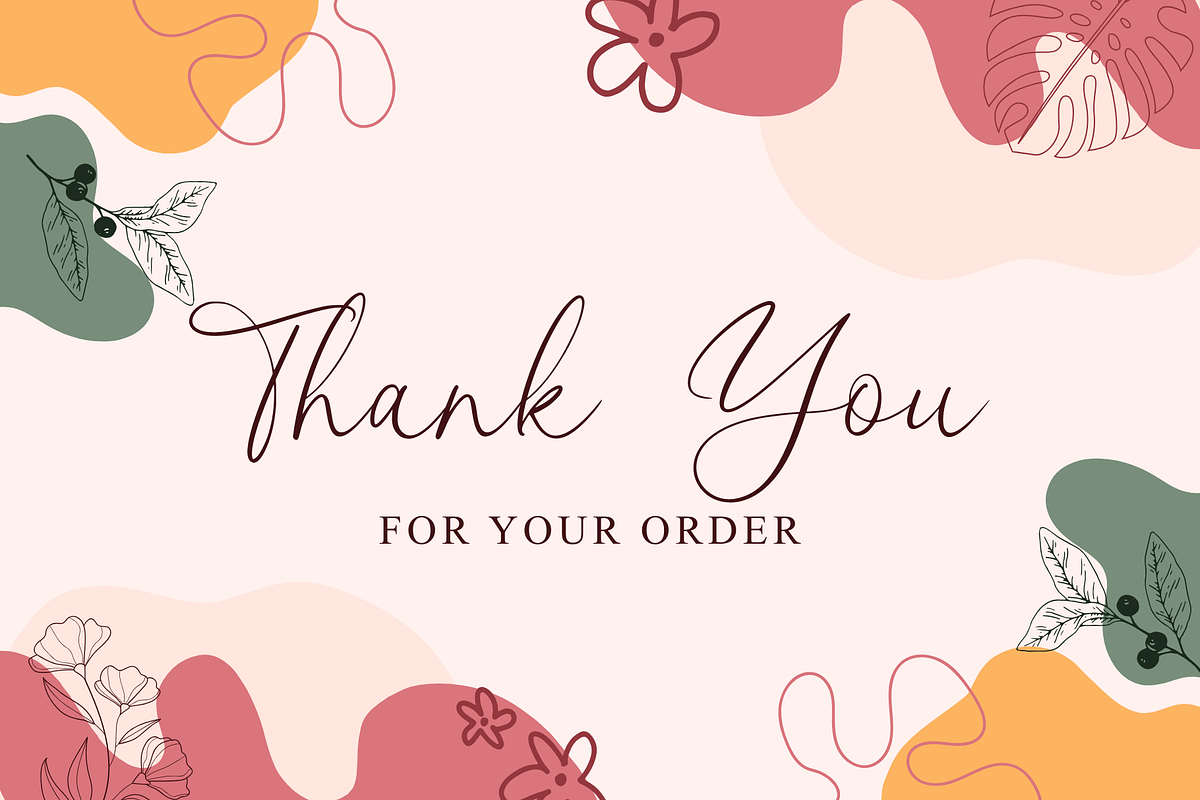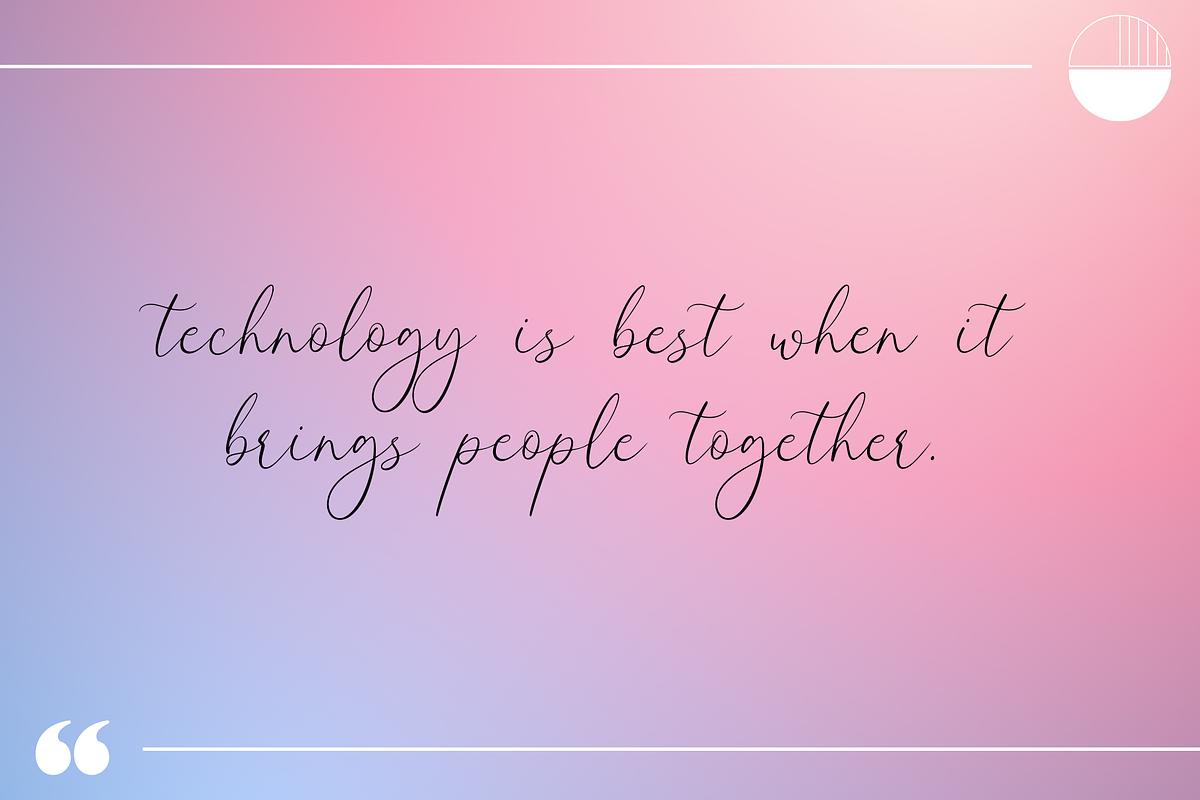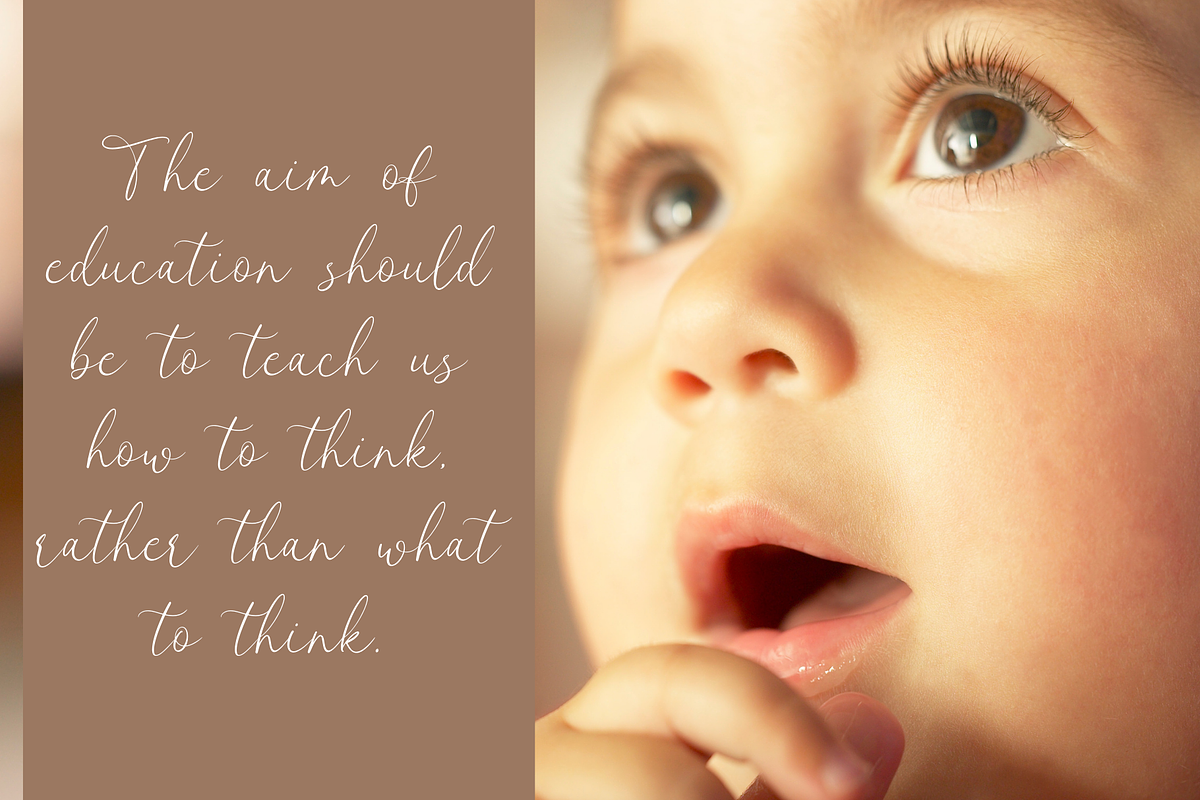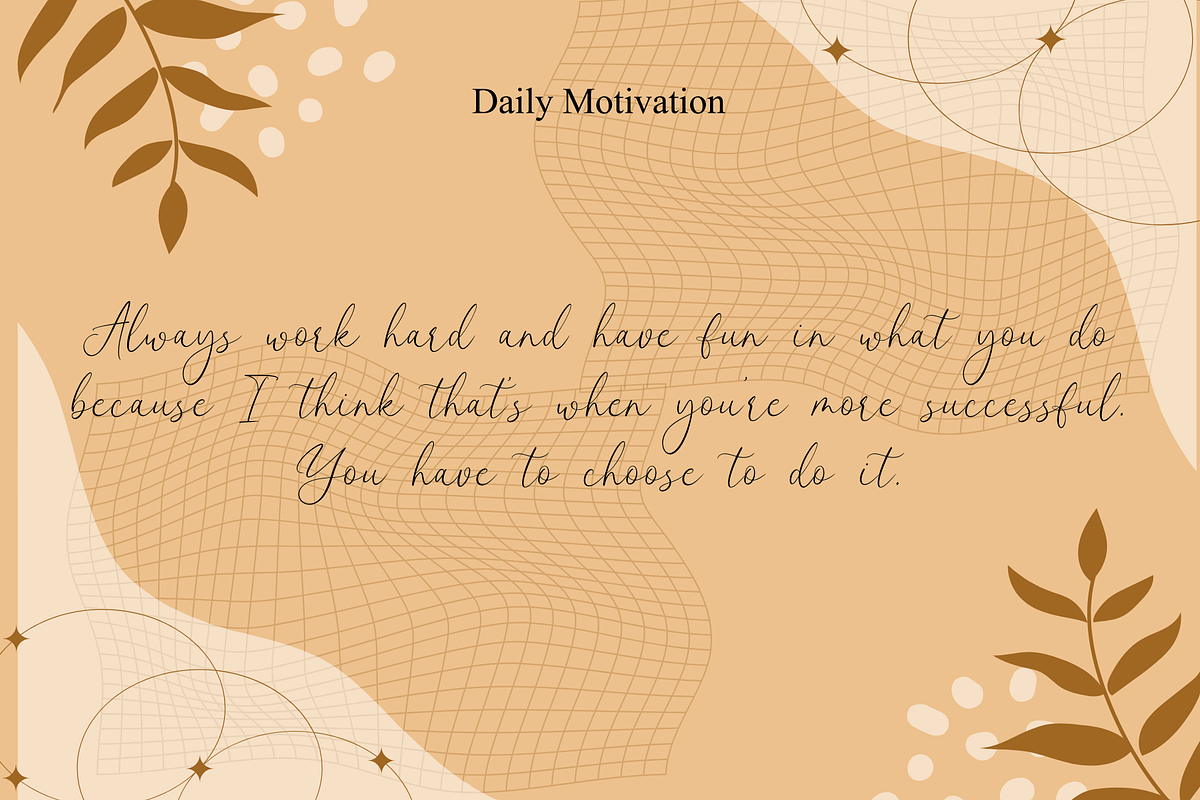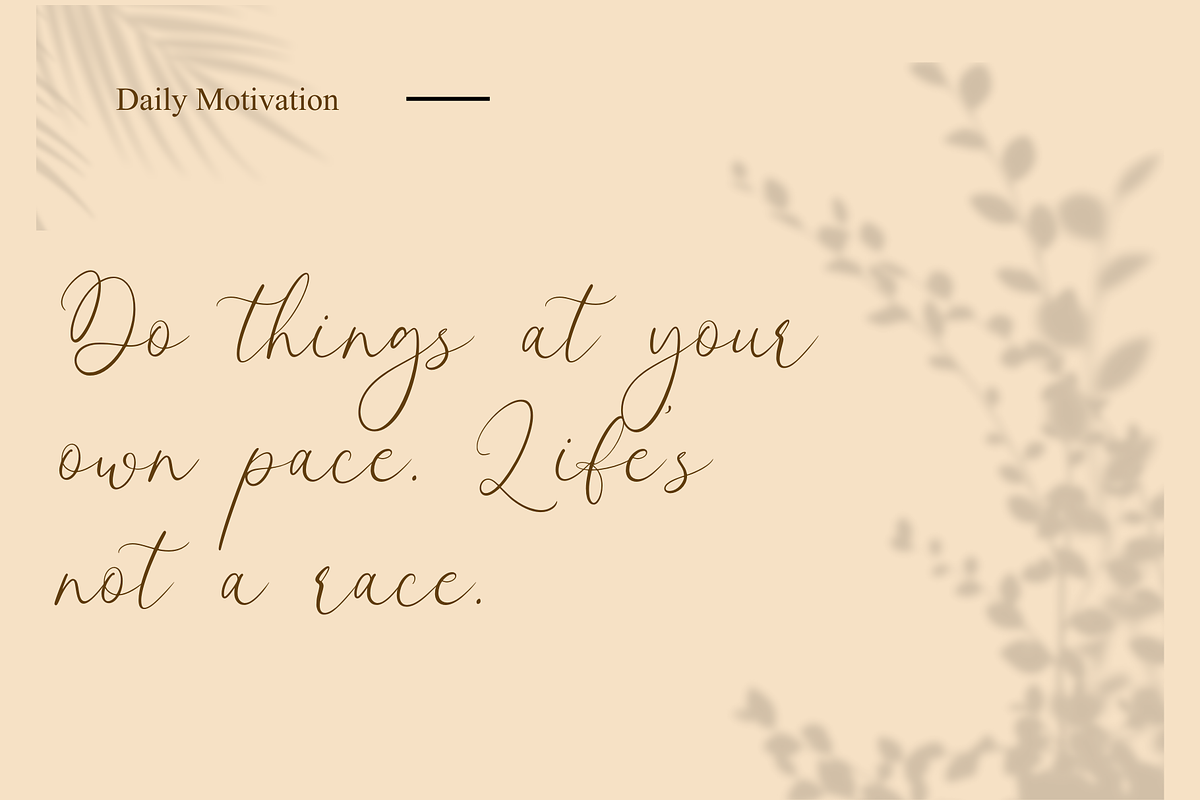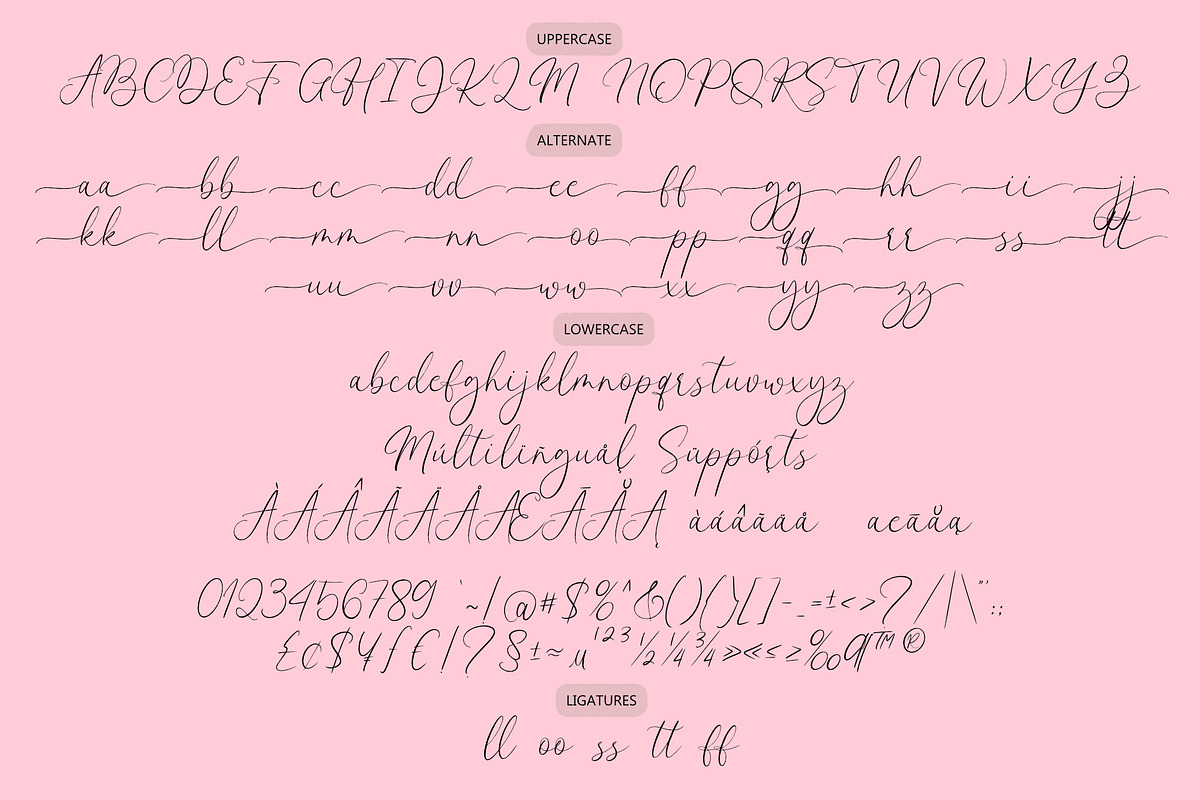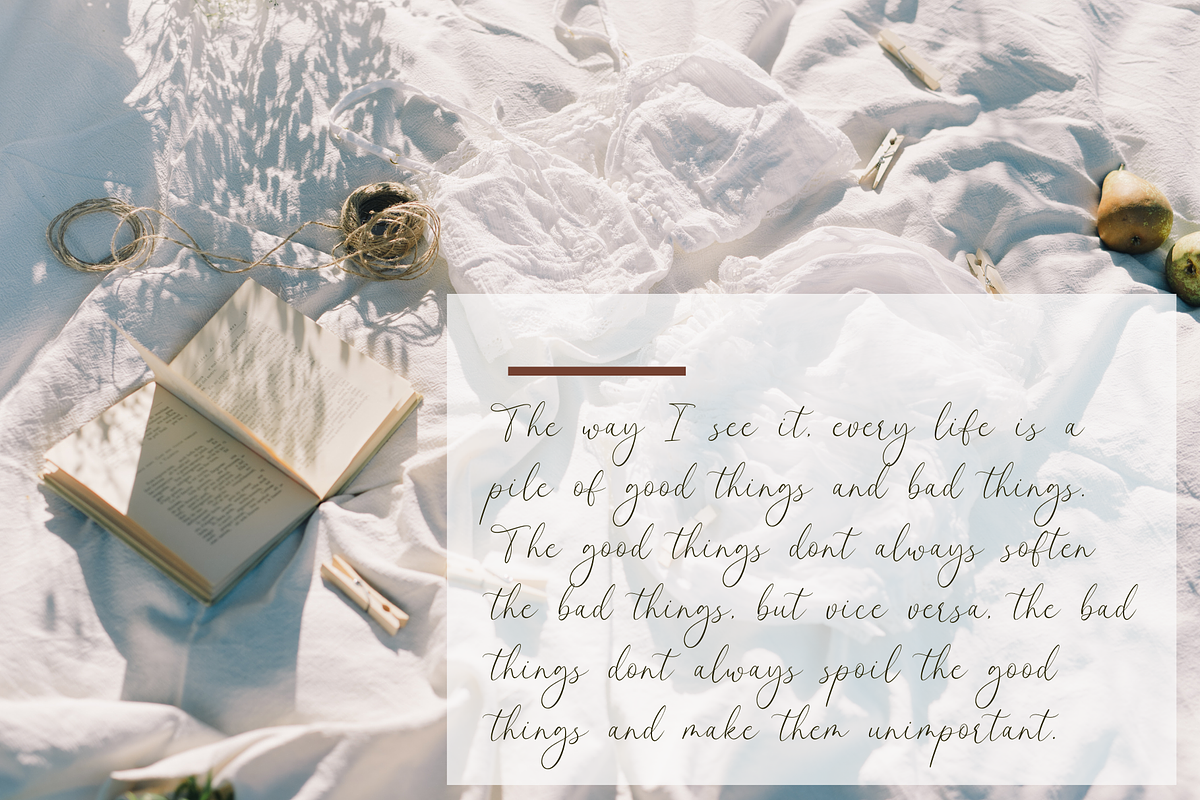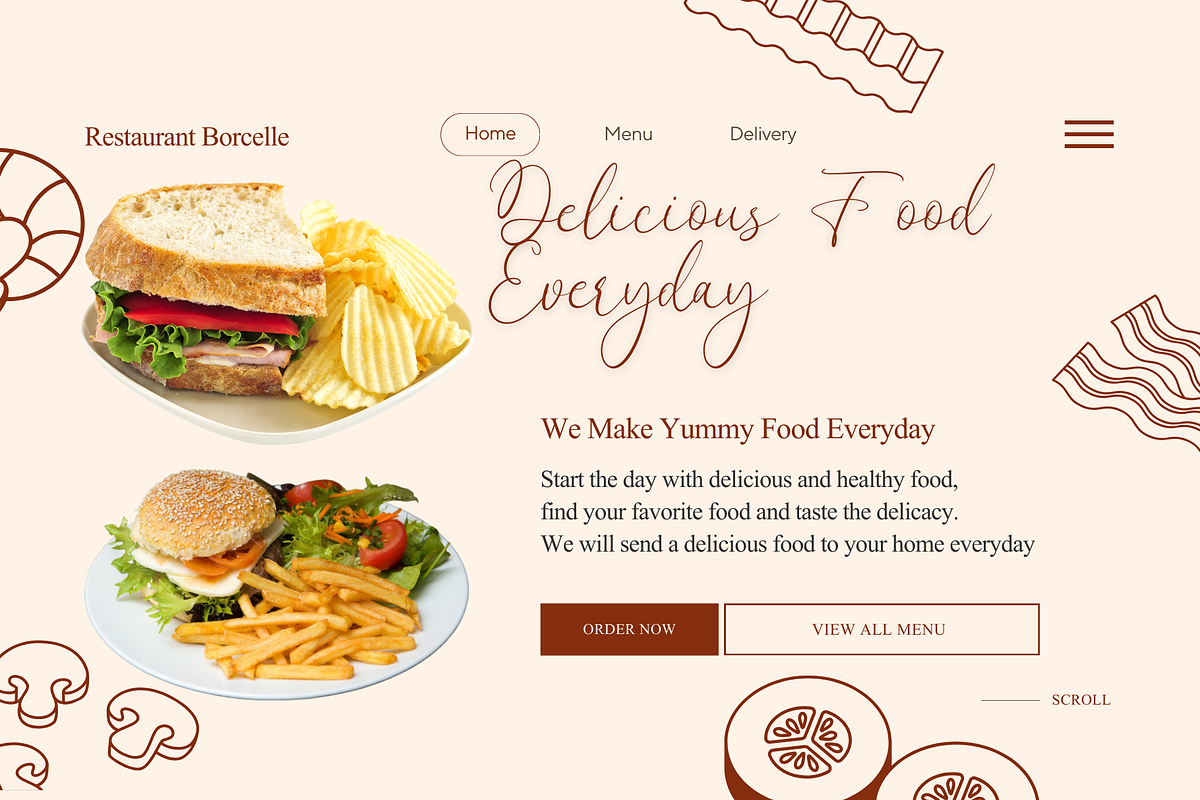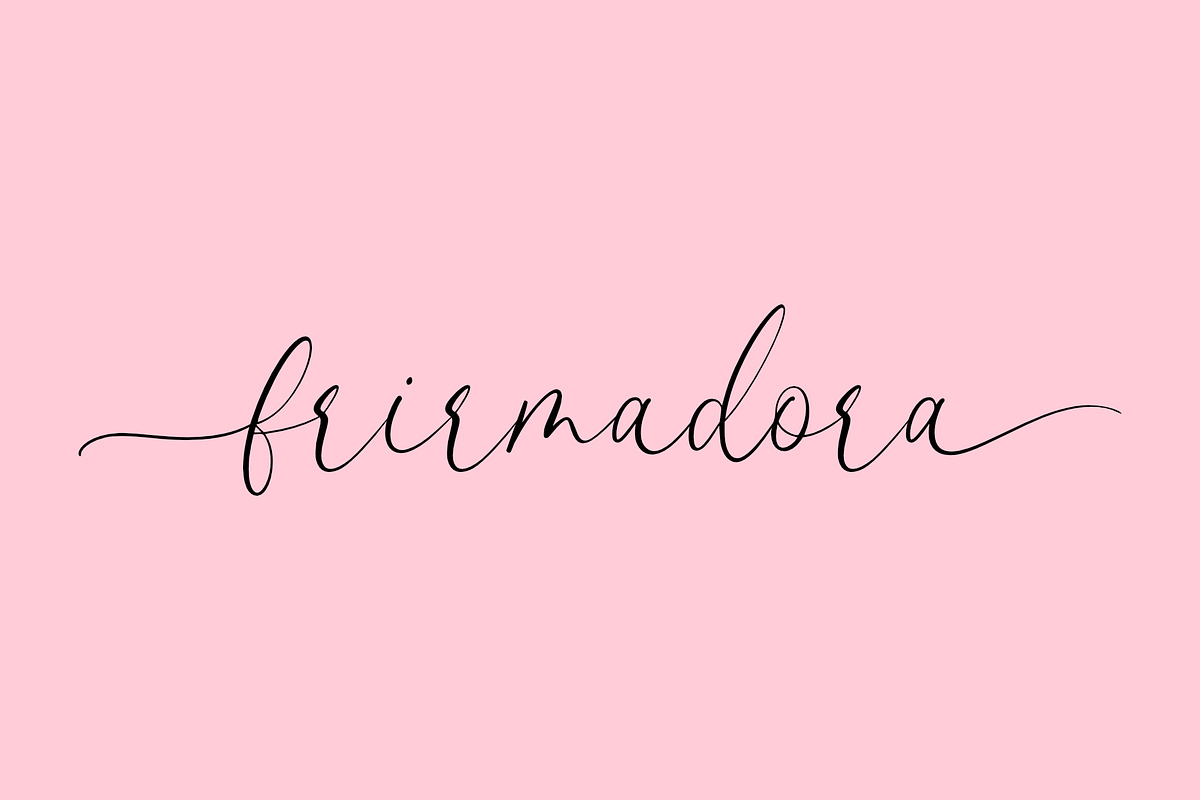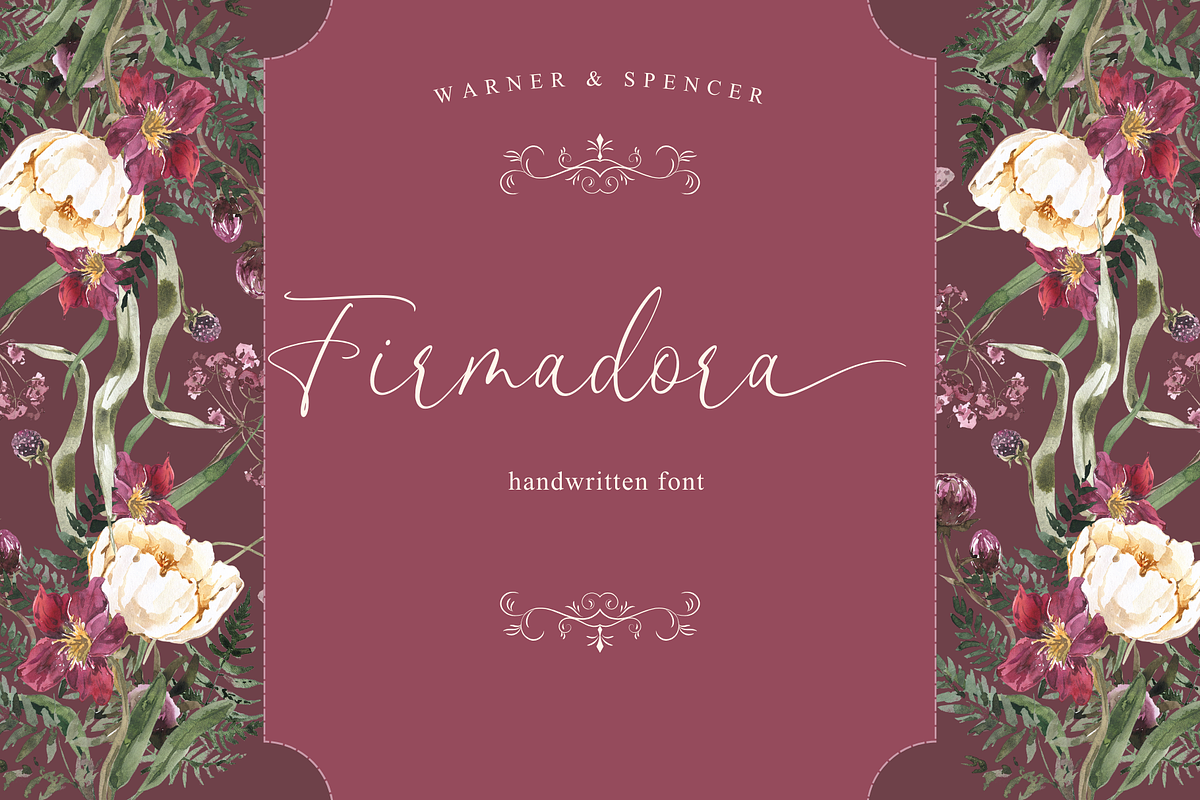
Firmadora
Firmadora Font is an elegant and sophisticated script font. Its intricate decorative details make it perfect for premium design projects such as wedding invitations, branding, and packaging. With its unique style, Firmadora Font adds a touch of luxury and exclusivity to any design.